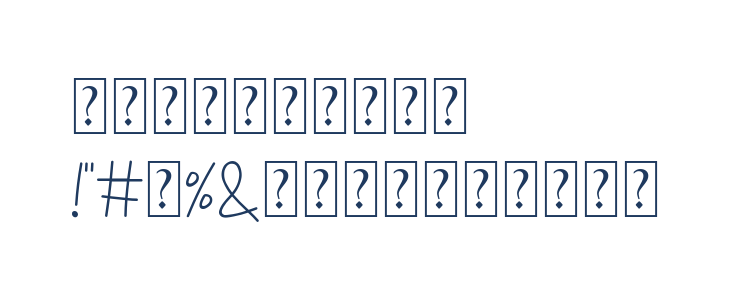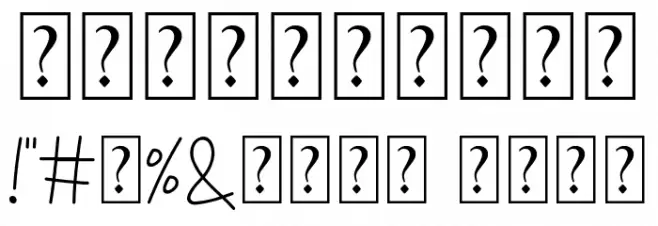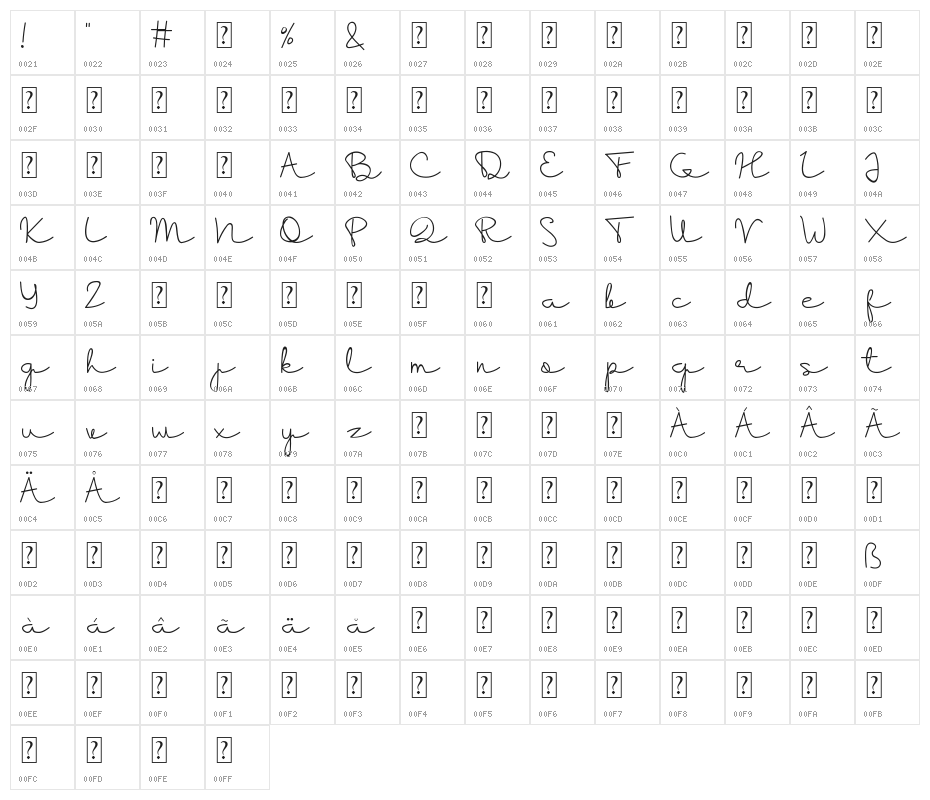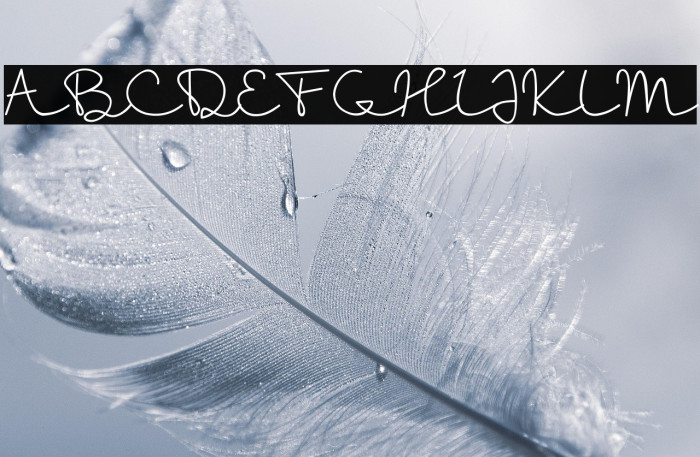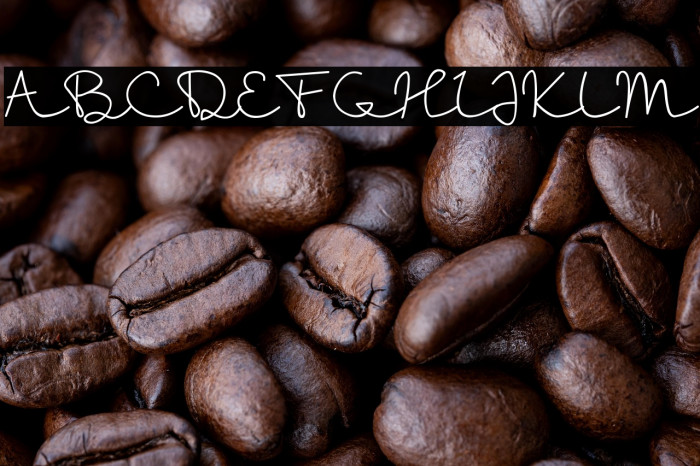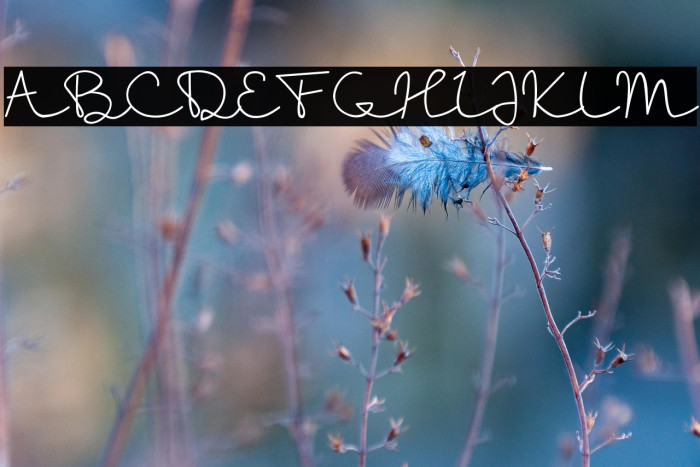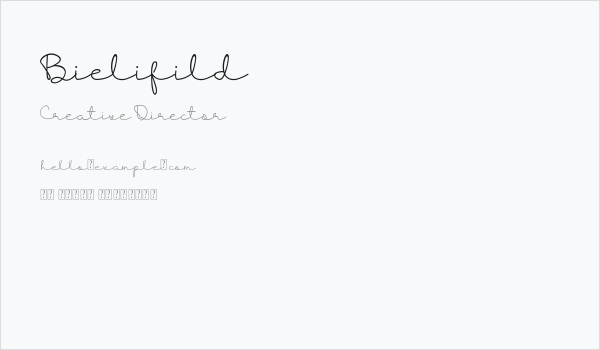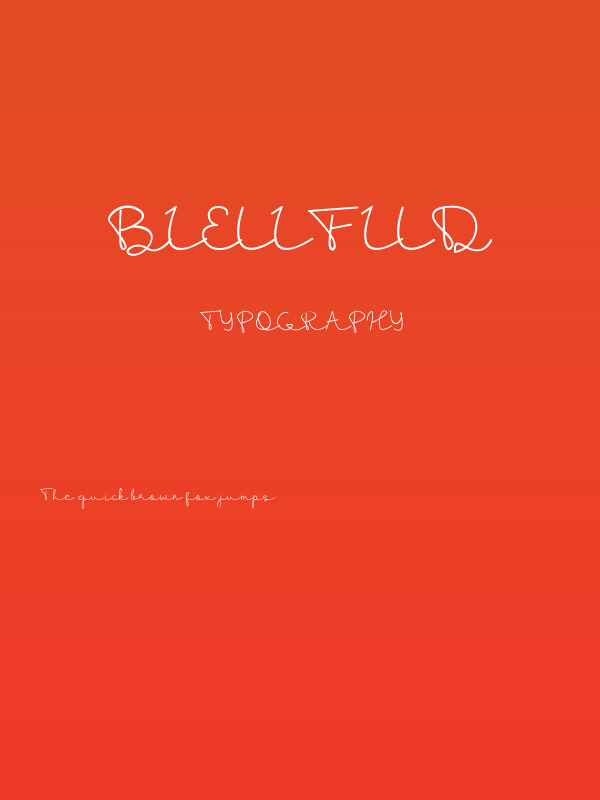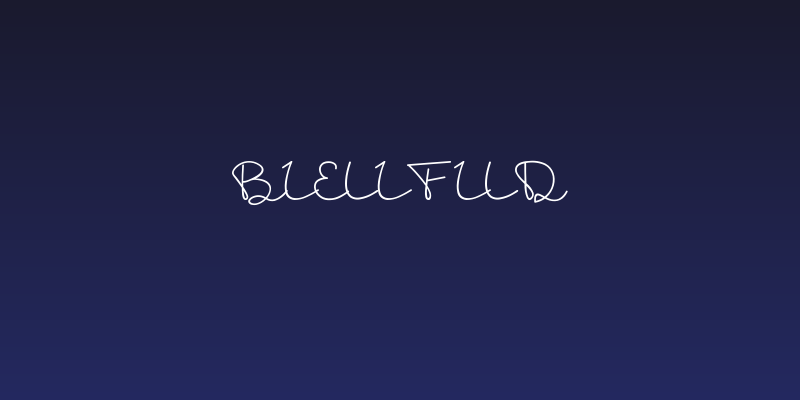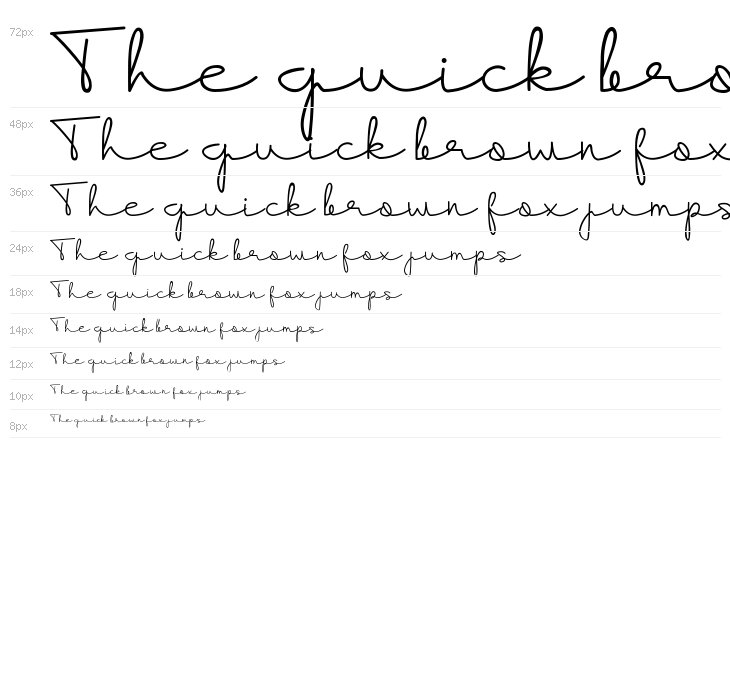
Bielifild Font
Bielifild Description
This font features a flowing, cursive style with elegant loops and smooth transitions between letters. The uppercase letters maintain a consistent height, while the lowercase letters have a playful yet sophisticated appearance. The strokes are thin and delicate, giving the font a light and airy feel. The special characters are not clearly defined, adding a unique, artistic touch to the overall design. This font is perfect for projects that require a personal, handwritten touch, such as invitations, greeting cards, or branding materials.
A delicate, cursive font with elegant loops and smooth transitions from Uncategorized fonts.
- Font: Bielifild
- Proposed Projects: Ideal for wedding invitations, personal branding, greeting cards, and artistic projects.
- Weight: Light
- Overall Style: Elegant, Handwritten
- Use Case: Headlines, Invitations, Personal Branding
Bielifild UPPERCASE
Bielifild LOWERCASE
Bielifild OTHER CHARS